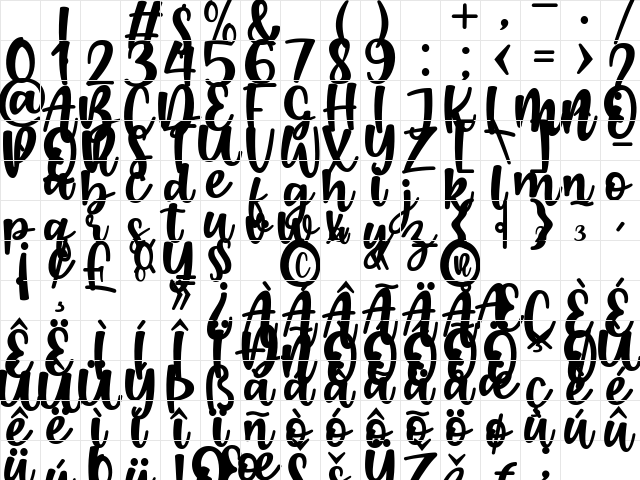
Boendalove is a composed and adaptable typeface that performs quietly and consistently across a wide range of design contexts.
Pro Tip: Use Boendalove in both headline and body roles to test its range before committing to a single application.